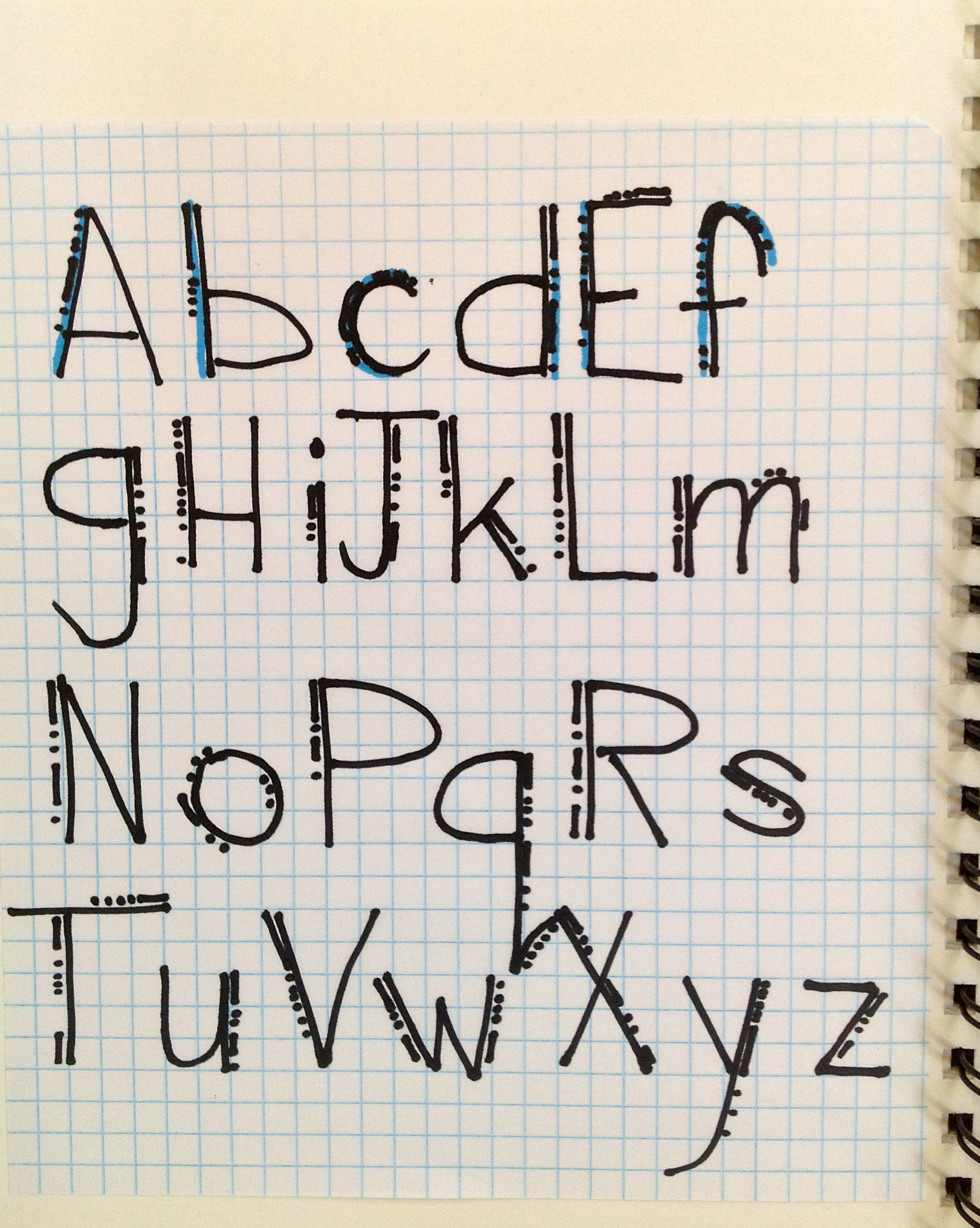
Fonts For Art Journaling
Fonts For Art Journaling. They write on their scrapbook pages about the event, the emotions surrounding an event and fun facts not wanting to be forgotten. If you can grab the grasp of it, it will look great in your bullet journal.
Zombie is an extremely expressive font. The handwritten font has slightly skewed letters that lean both right and left. Pixilate fonts ( most are free) free digital scrapbooking fonts.
The Faux Block Is One Of The Easiest Bullet Journal Fonts To Learn!
Marker Pen, Writing With A Brush Tip.
And It Can Really Add Some Great Color To Your Journal!
Leave A Little Space Between Each Letter.
They write on their scrapbook pages about the event, the emotions surrounding an event and fun facts not wanting to be forgotten. Journal à € by fontourist. Hand lettering with marker pens.